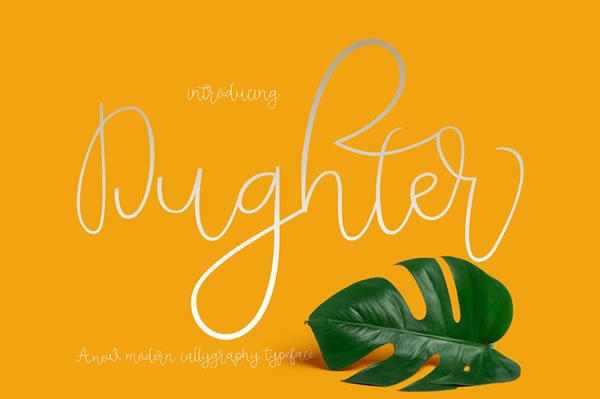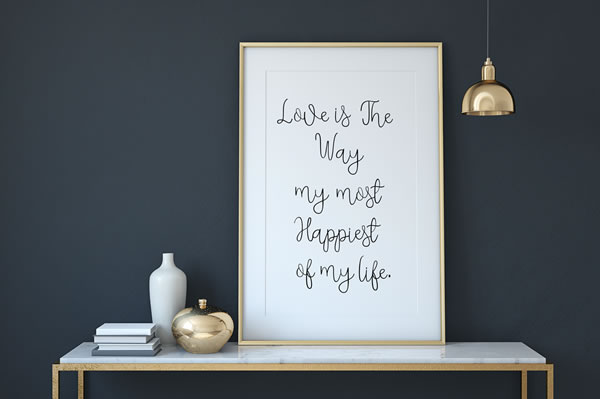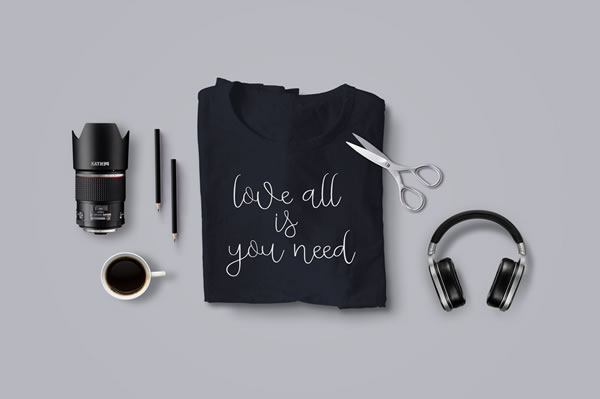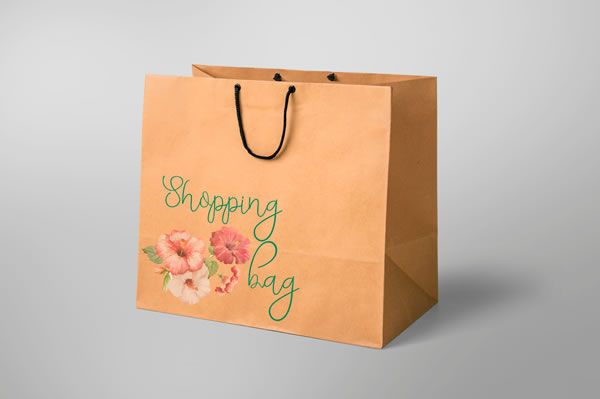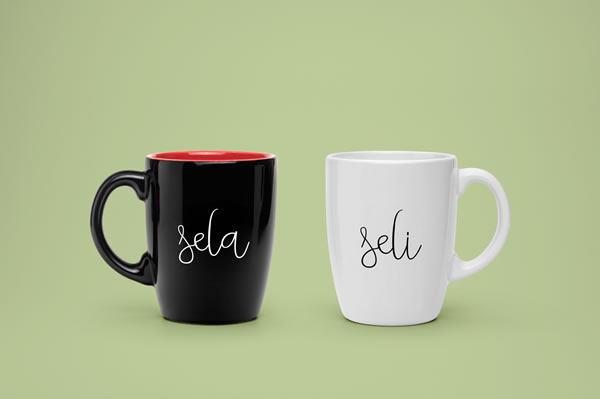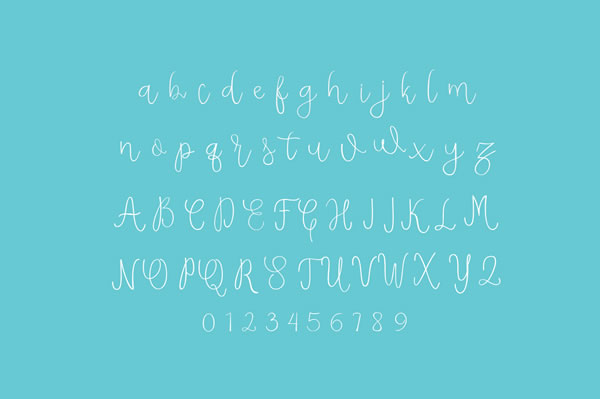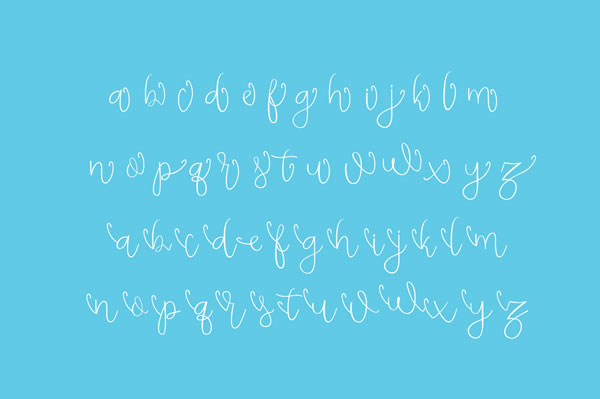
Embracing the Art of Modern Calligraphy
Have you ever found yourself scribbling notes in a coffee shop, only to realize that the messy handwriting has turned into a beautiful piece of art? For many creatives, that’s the moment when the magic happens – a spark of inspiration that sets the wheels turning. For designers, this moment can be a gateway to creating unique and captivating content.
Enter the Dughter Font, a modern calligraphy font created by RT Creative 86. Designed to evoke a sense of elegance and sophistication, this font is perfect for adding a touch of personality to your designs. Whether you’re working on a wedding invitation, a branding project, or a social media campaign, the Dughter Font is a valuable asset for any designer looking to elevate their work.
With its versatility and stylish flair, the Dughter Font is an essential addition to any design toolkit. Say goodbye to generic fonts and hello to a world of creative possibilities.
Dughter Font Key Features
- Unique Characteristics: This font features a unique blend of modern and vintage elements, with intricate details and subtle texture, giving it a distinctive look.
- Font Pairing: Daughter Font is designed to pair well with a variety of font styles, from serif and sans-serif to script and display fonts, making it a versatile choice for designers.
Dughter Font Review
As a designer, I’ve had the chance to experiment with the Daughter font, and I’m here to share my honest thoughts.
- Unique aesthetic: Daughter font has a distinctive feel that sets it apart from other fonts. Its quirky, handwritten style can add a touch of personality to designs.
- Good for titles and headings: The font’s bold, expressive lines make it well-suited for titles, headings, and other prominent text elements.
- Supports a wide range of languages: Daughter font includes a broad range of language support, making it a viable option for multilingual designs.
- Lack of versatility: While Daughter font excels at conveying a sense of personality, it may not be the best choice for body text or large blocks of text.
- May be difficult to read at small sizes: The font’s unique characteristics can make it challenging to read when scaled down to smaller sizes.
- No clear font pairing options: Daughter font’s distinctive style may not lend itself easily to pairing with other fonts, which can limit design possibilities.
Daughter font is a great choice for designers looking to add a touch of whimsy and personality to their designs. While it may have some limitations, its unique aesthetic and broad language support make it a valuable addition to any designer’s toolkit.
Daughter Font: A Practical Application Guide
Daughter Font is ideal for:
• Wedding invitations and stationery
• Branding and marketing materials
• Editorial and publishing projects
• Any design project requiring a unique, elegant font
Tips for Getting the Most Out of Daughter Font
• Experiment with different font sizes and styles to achieve the desired effect.
• Pair Daughter Font with a neutral background to let the font take center stage.
• Use Daughter Font in conjunction with other elegant fonts for a sophisticated look.
Alternatives to Dughter Font
Montserrat is a sans-serif font designed for digital use, suitable for titles and headings. It has a geometric and modern feel, making it perfect for contemporary designs. Montserrat is more versatile than Dughter Font, offering multiple styles and weights.
Comparison: Montserrat is more extensive in terms of styles and weights, making it a better option for complex designs. However, it may not have the same level of elegance as Dughter Font.